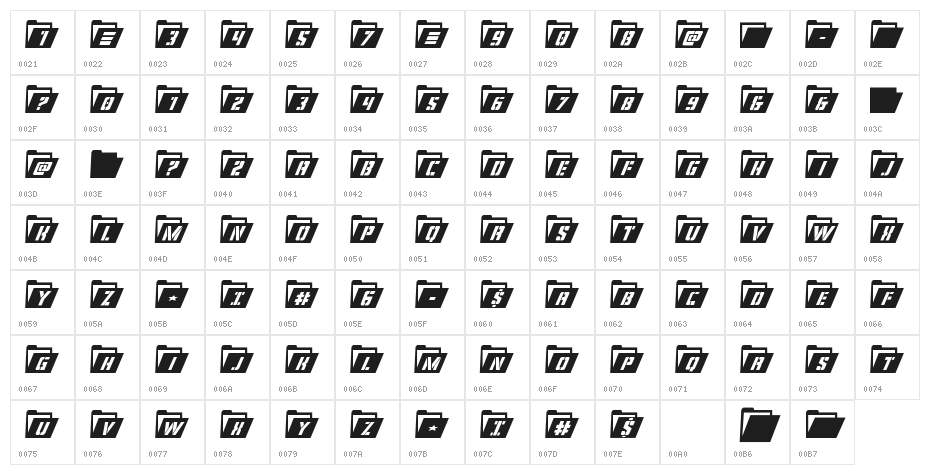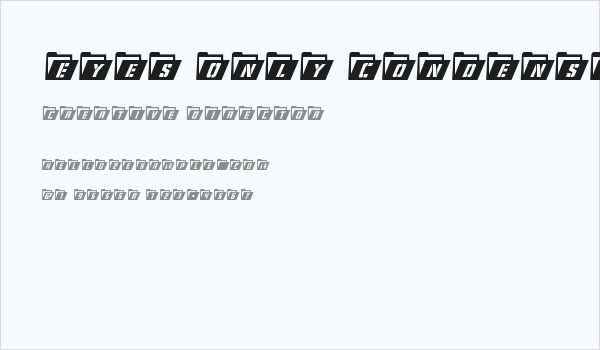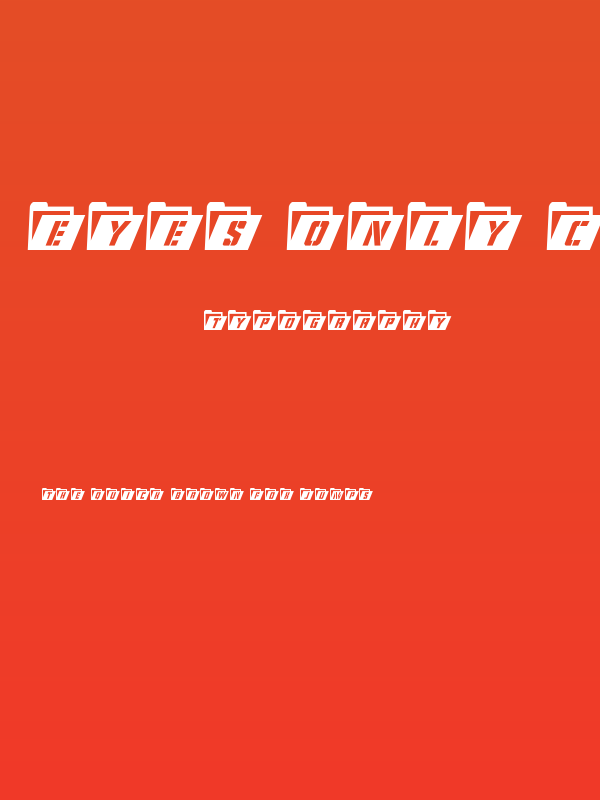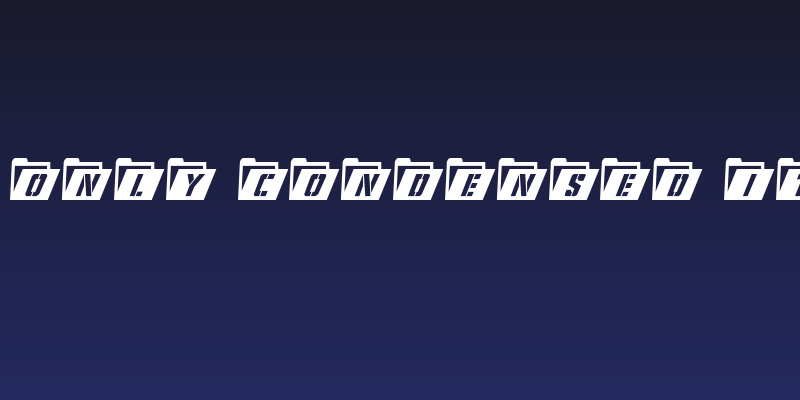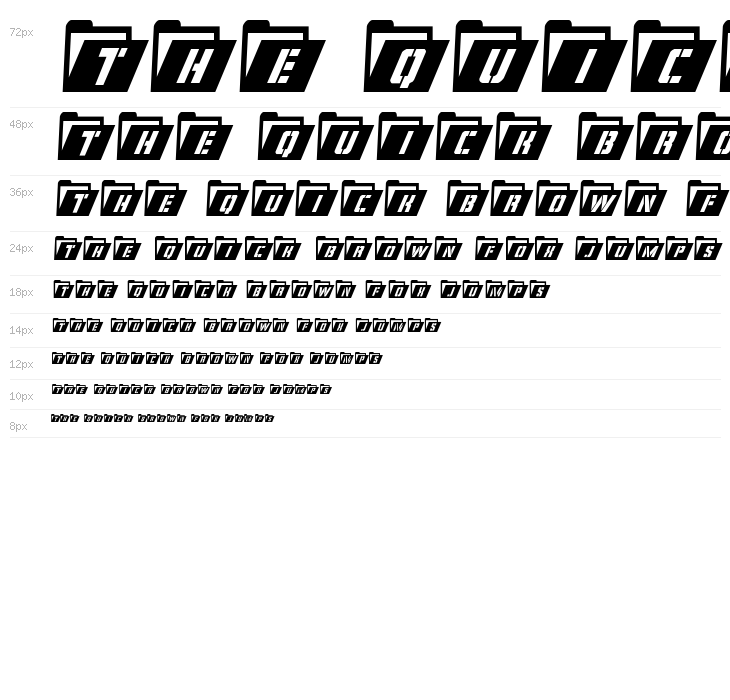
Eyes Only Condensed Italic Font
Eyes Only Condensed Italic Description
This font features a bold and dynamic style with a distinct italic slant, giving it a sense of motion and urgency. The characters are enclosed in a unique folder-like shape, adding a modern and edgy feel. Each letter and number is designed with a condensed width, which enhances the compact and sleek appearance. The font's high contrast between thick and thin strokes adds to its striking visual impact, making it ideal for attention-grabbing designs. The overall aesthetic is both futuristic and industrial, suitable for projects that require a bold statement.
| Proposed Projects | Ideal for branding, posters, album covers, and any design needing a bold, modern look. |